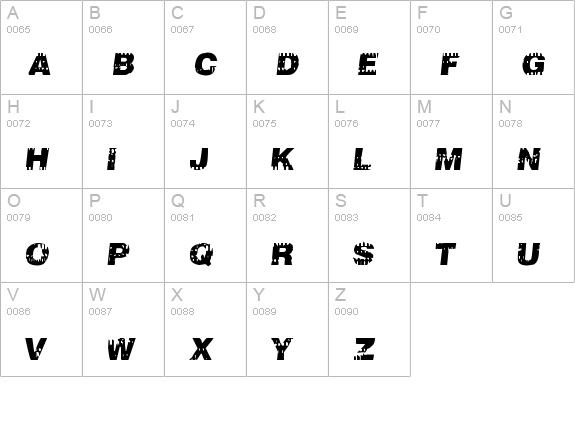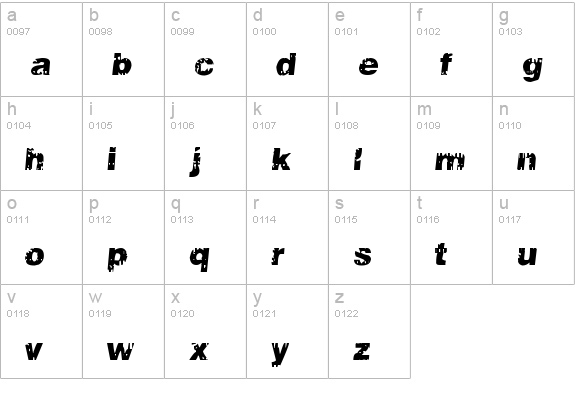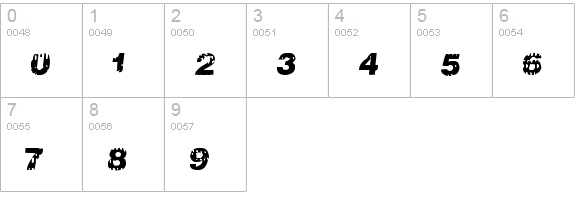
106 Beats That font is a versatile and stylish typeface that exudes creativity and modernity. With its unique and eye-catching design, this font is perfect for a wide range of design projects, from branding to social media graphics. The sleek lines and sharp angles of 106 Beats That font give any text a contemporary and edgy look, making it stand out from the crowd. What makes 106 Beats That font even more appealing is that it is available for free download at FontsMarket.com. This means you can easily access and use this stunning font in your projects without any cost. Whether you're a professional designer looking to add a fresh touch to your work or a hobbyist wanting to experiment with new fonts, 106 Beats That font is a must-have addition to your collection. Download 106 Beats That font today from FontsMarket.com and elevate your designs with this striking and modern typeface.